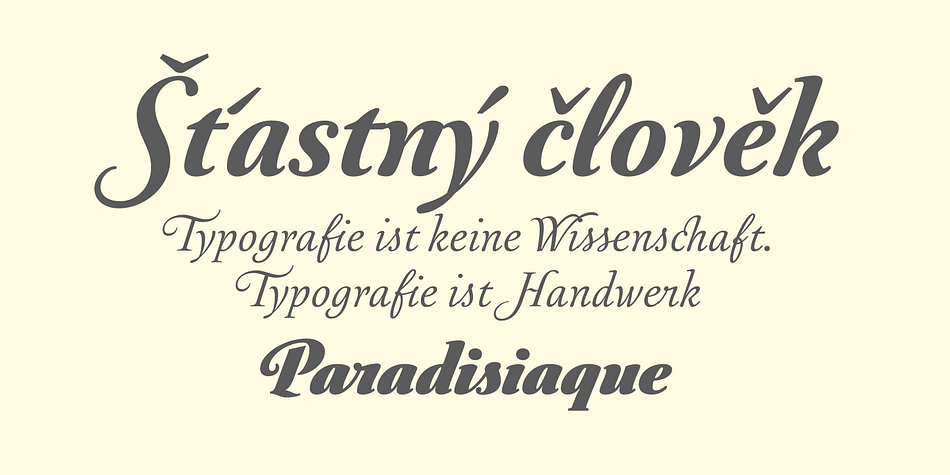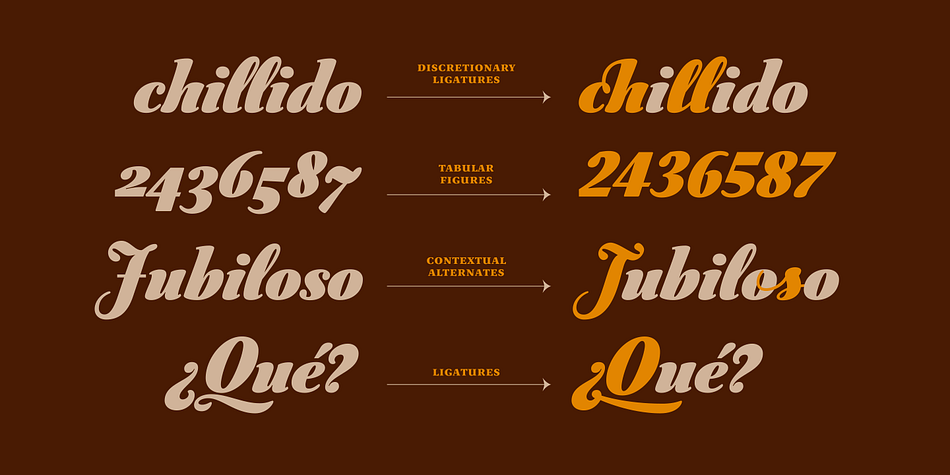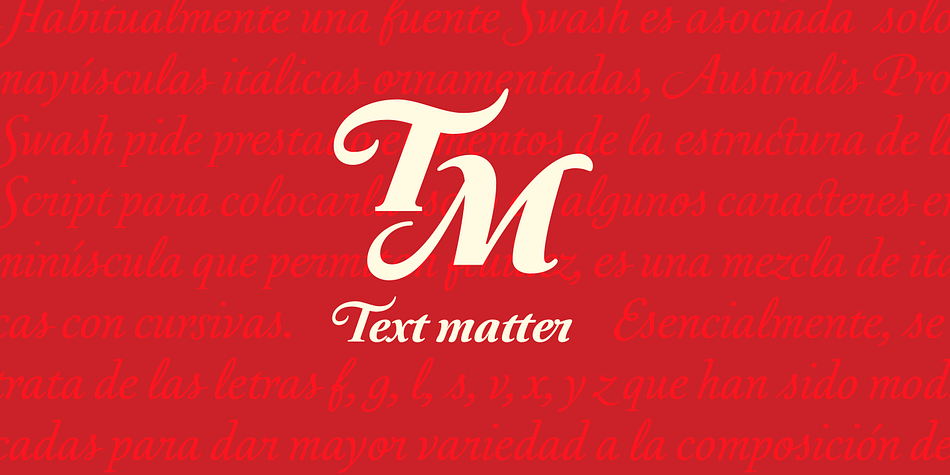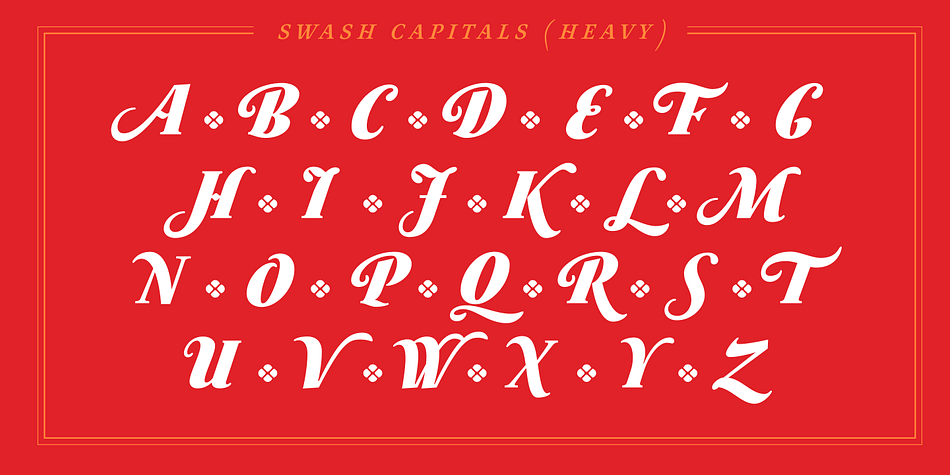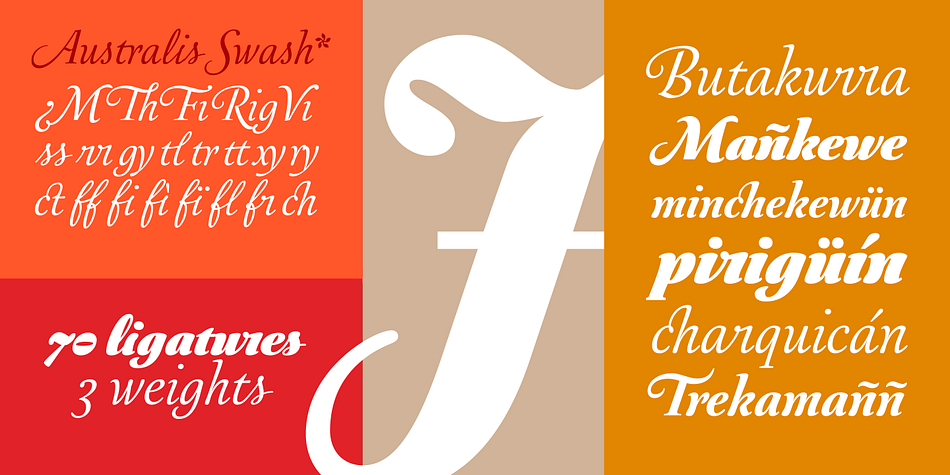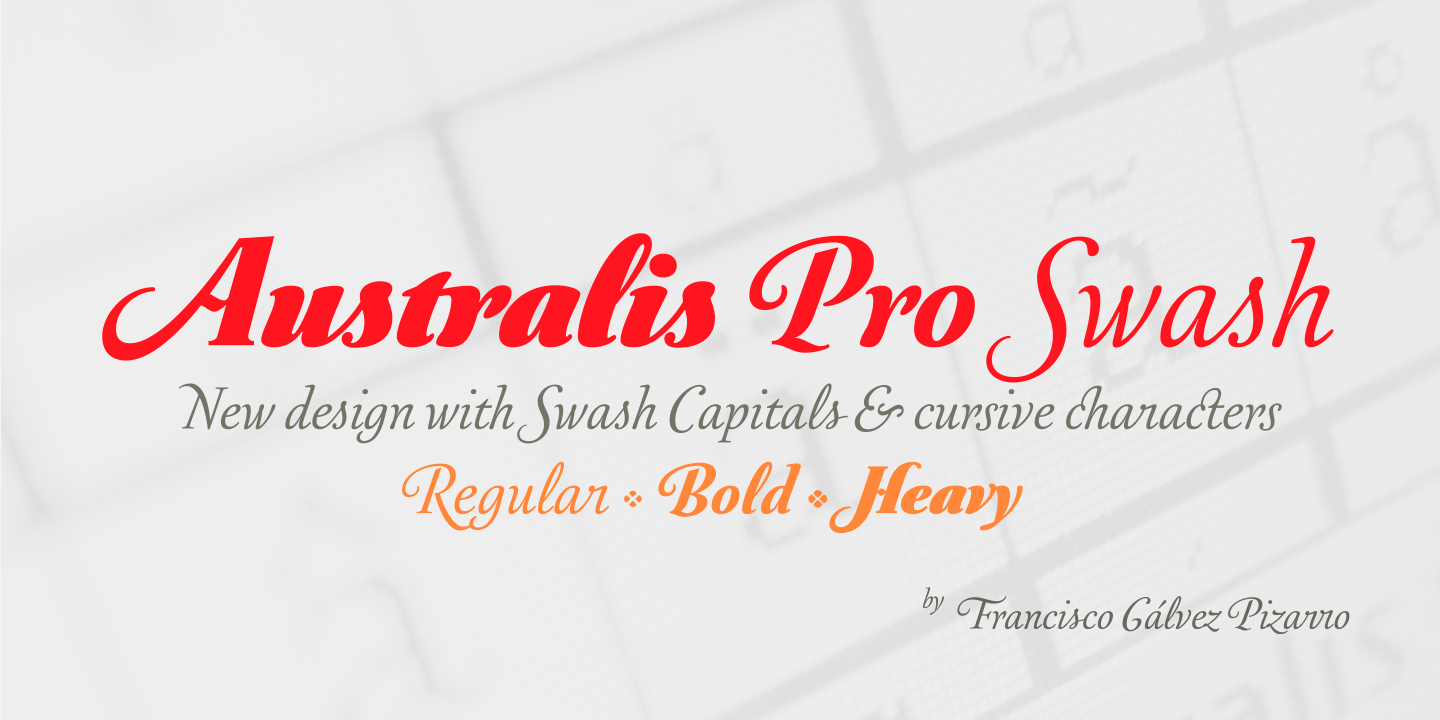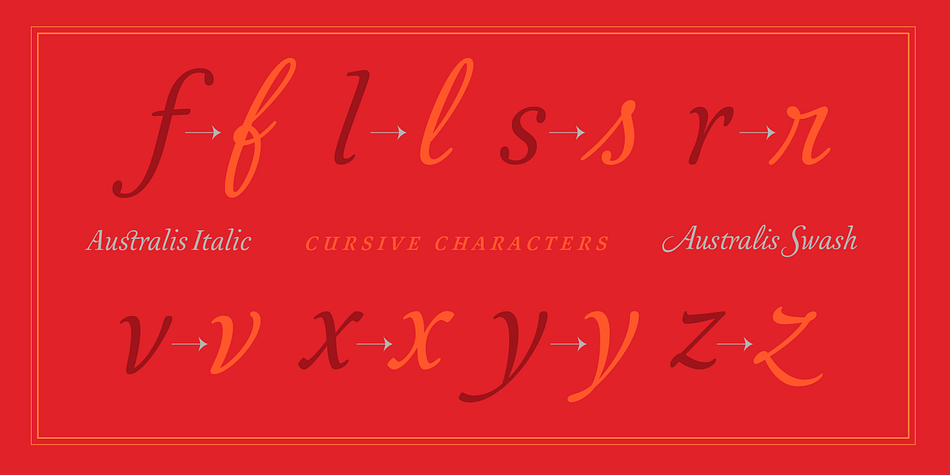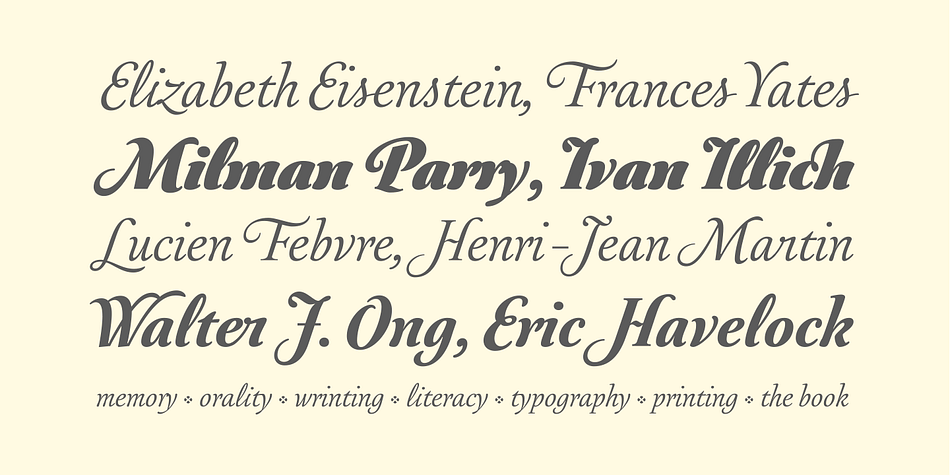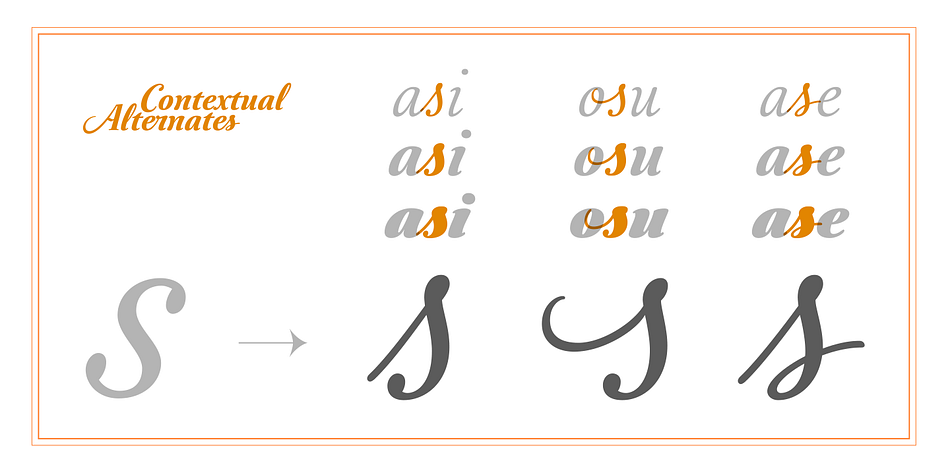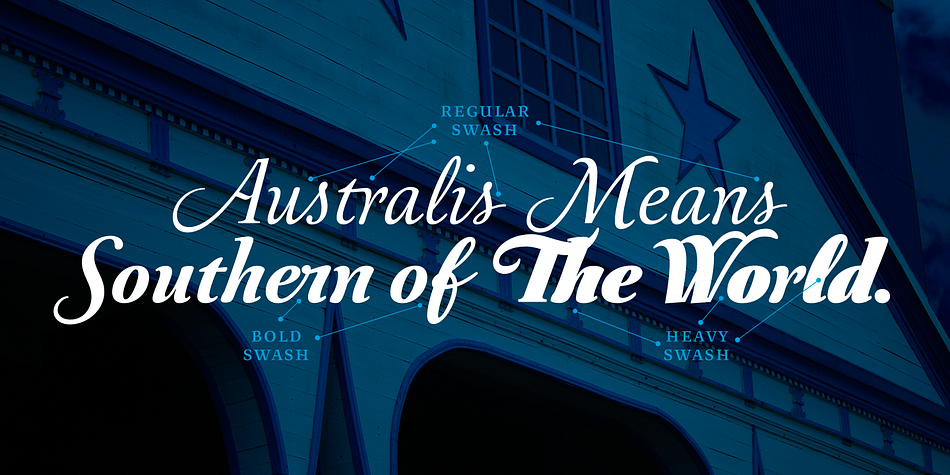
Australis Pro Swash is a display serif font family. This typeface has three styles and was published by Latinotype.
Australis Swash is a new variant that adds to the family of Australis Pro and it brings a touch of whimsy and mannerism to the shape of the cursive letters.
Its purpose is purely playful because Australis Swash has some useful Opentype features as standard ligatures, discretionary ligatures and contextual alternates to use them in headlines or as a base for brands and lettering in general. Designed by Francisco Pizarro Gálvez in 2013.